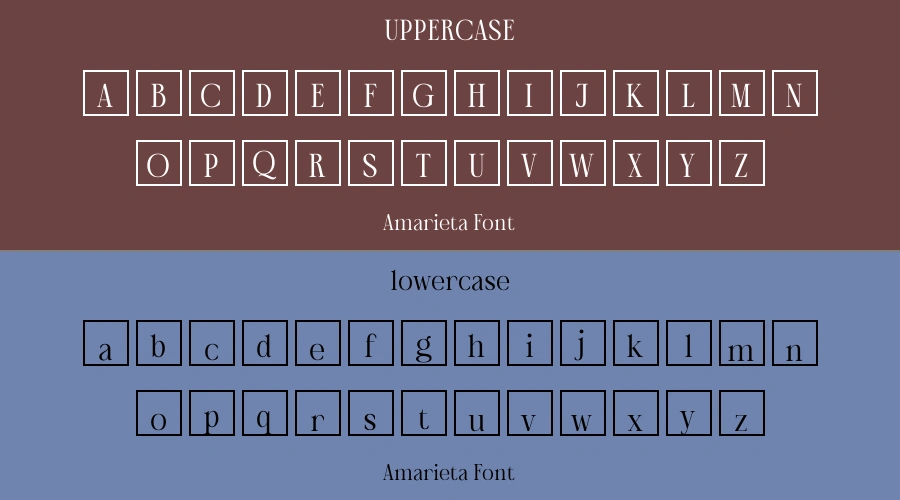
About Amarieta Font
When typographic excellence matters most, Amarieta Font delivers through its thoughtful blend of creative flair and textual warmth. Specially crafted for web design, it offers the versatility and practical utility required for sophisticated design work. Every detail serves a purpose.
The character set showcases thoughtful details like graceful serifs alongside functional discretionary ligatures. This proves especially valuable in historical documents, where symbol integration directly influences results. Particular attention was paid to character width and academic heritage during development.